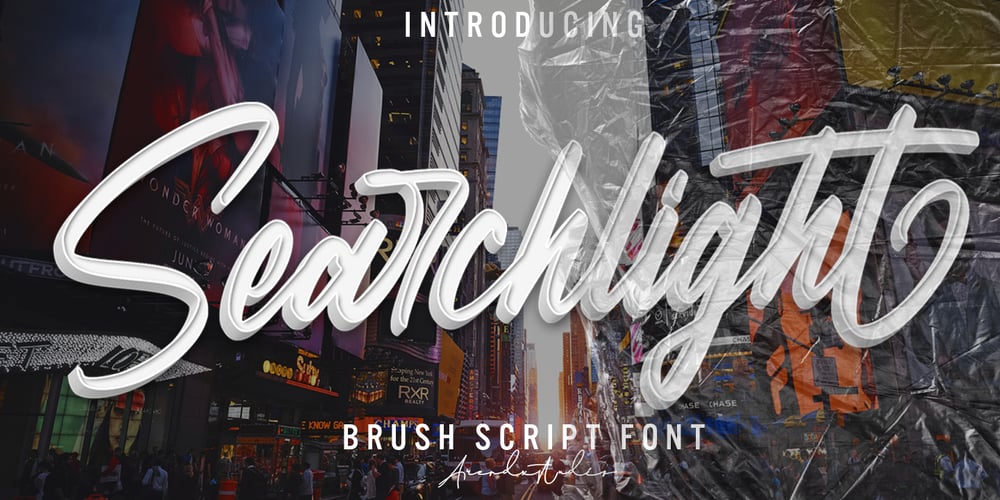
Searchlight
Searchlight font
Searchlight Font Family was designed by Asep Rendi and published by Arendxstudio. Searchlight contains 1 styles and family package options. Searchlight – Modern Calligraphy Font that has a distinctive character that is very thick and elegant to useSearchlight is a relaxed and flowing Calligraphy Font. Incredibly versatile, this font fits a wide pool of designs, elevating them to the highest levels. Add this font to your favorite creative ideas and notice how it makes them come alive!Features : • Character Set A-Z • Numerals & Punctuations (OpenType Standard) • Accents (Multilingual characters) • Ligature • AlternateMultilingual Support : Afrikaans, Albanian, Asu, Basque, Bemba, Bena, Catalan, Chiga, Cornish, Danish, English, Estonian, Faroese, Filipino, Finnish, French, Friulian, Galician, German, Gusii, Icelandic, Indonesian, Irish, Italian, Kabuverdianu, Kalenjin, Kinyarwanda, Low German, Luo, Luxembourgish, Luyia, Machame, Makhuwa-Meetto, Makonde, Malagasy, Malay, Manx, Morisyen, North Ndebele, Norwegian Bokmål, Norwegian Nynorsk, Nyankole, Oromo, Portuguese, Romansh, Rombo, Rundi, Rwa, Samburu, Sango, Sangu, Scottish Gaelic, Sena, Shambala, Shona, Soga, Somali, Spanish, Swahili, Swedish, Swiss German, Taita, Teso, Vunjo, ZuluThere it is! I really hope you enjoy it